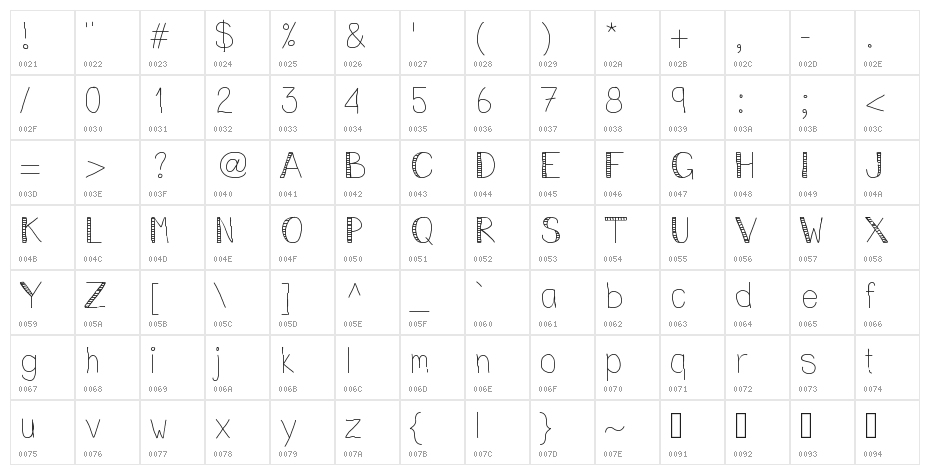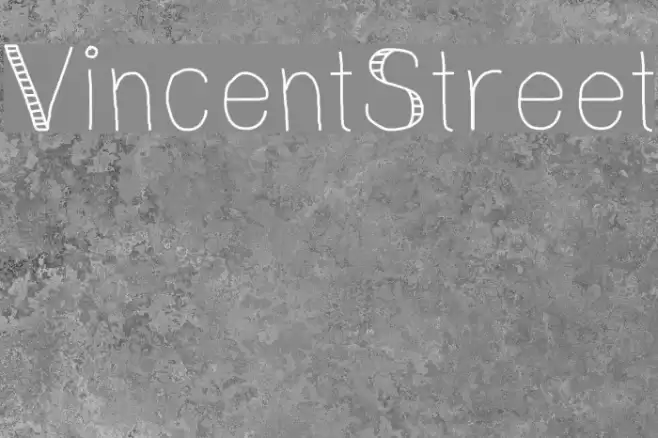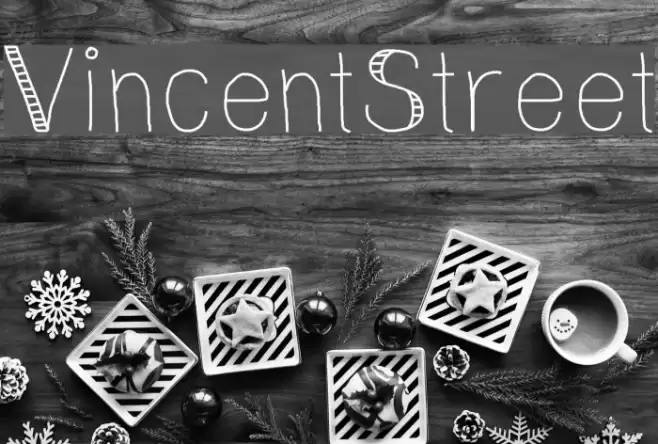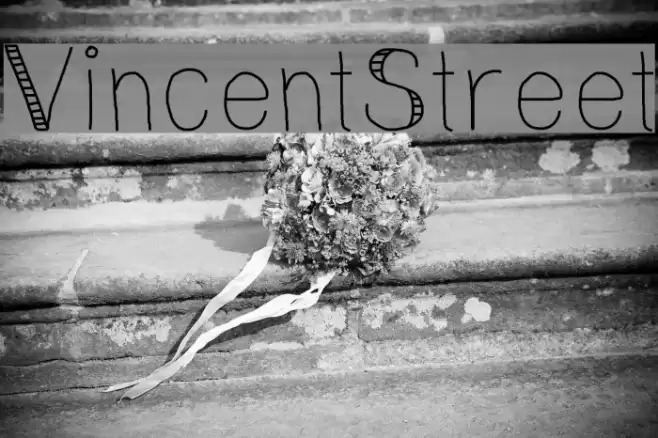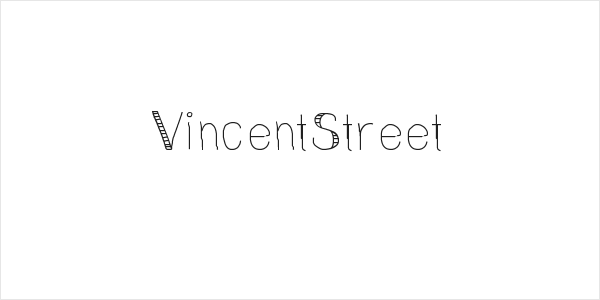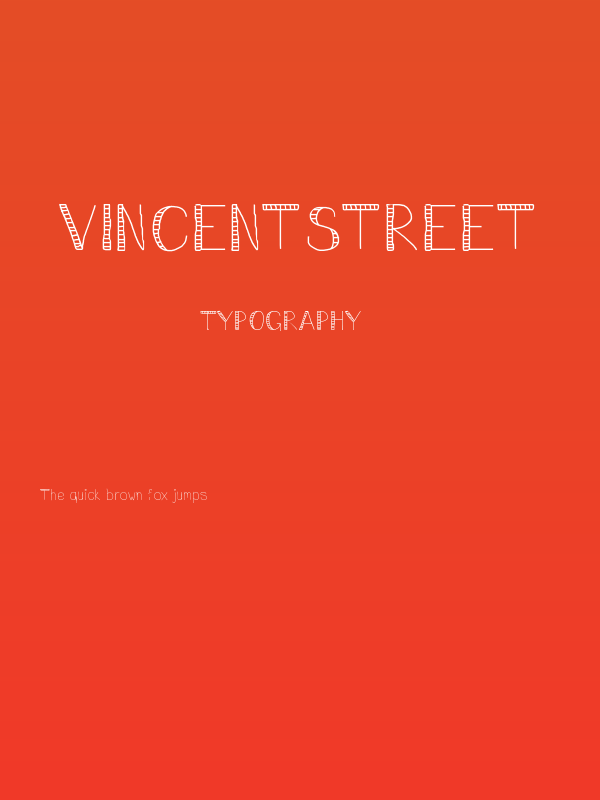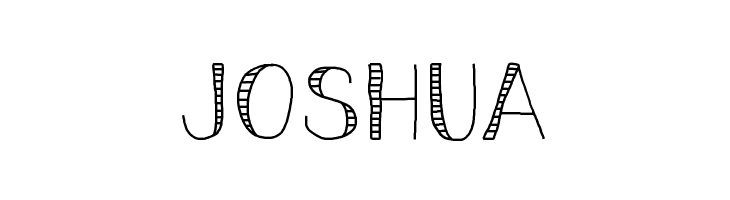
VincentStreet Font
VincentStreet Description
This font features a playful and whimsical design with a hand-drawn aesthetic. The uppercase letters have a unique pattern with vertical stripes, adding a decorative touch. The lowercase letters maintain a simple, clean line that complements the more intricate uppercase. Numbers and special characters are consistent with the overall style, providing a cohesive look. The font's informal and friendly appearance makes it suitable for creative projects that require a personal touch. Its legibility and distinctiveness make it stand out in various applications.
| Proposed Projects | Ideal for children's books, greeting cards, posters, and creative branding projects. |